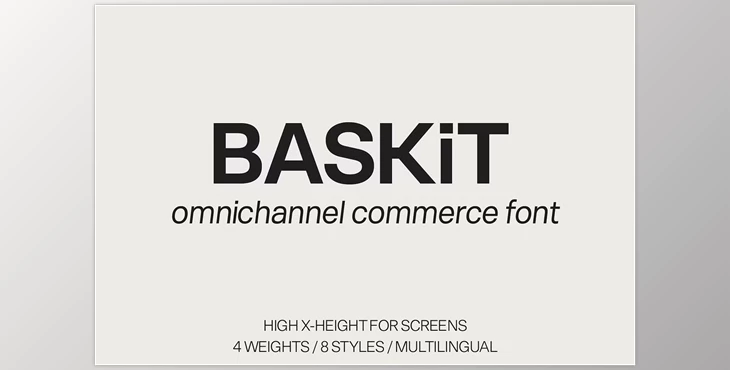
BASKiT - Commerce Branding Font: BASKiT is a contemporary commerce branding font designed to elevate your brand identity. Tailored for both web and offline applications, BASKiT features a balanced x-height and economical character widths, making it particularly suited for screen use. Its modern aesthetic adds a fresh and memorable touch to your brand, enhancing brand retention and leaving a lasting impression. With BASKiT, you can take your branding to the next level, ensuring that your message stands out and resonates with your audience, rather than settling for bland and forgettable typography.